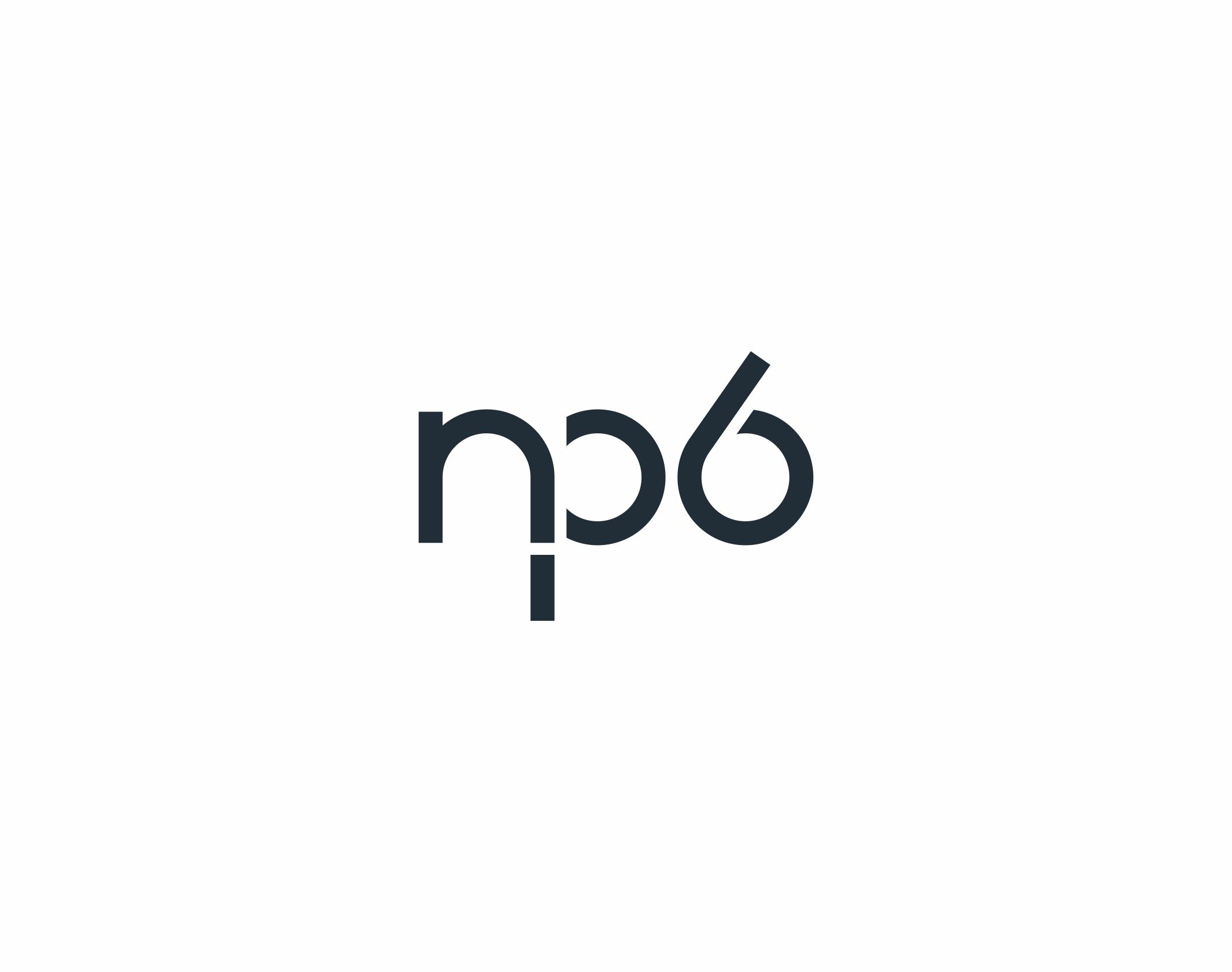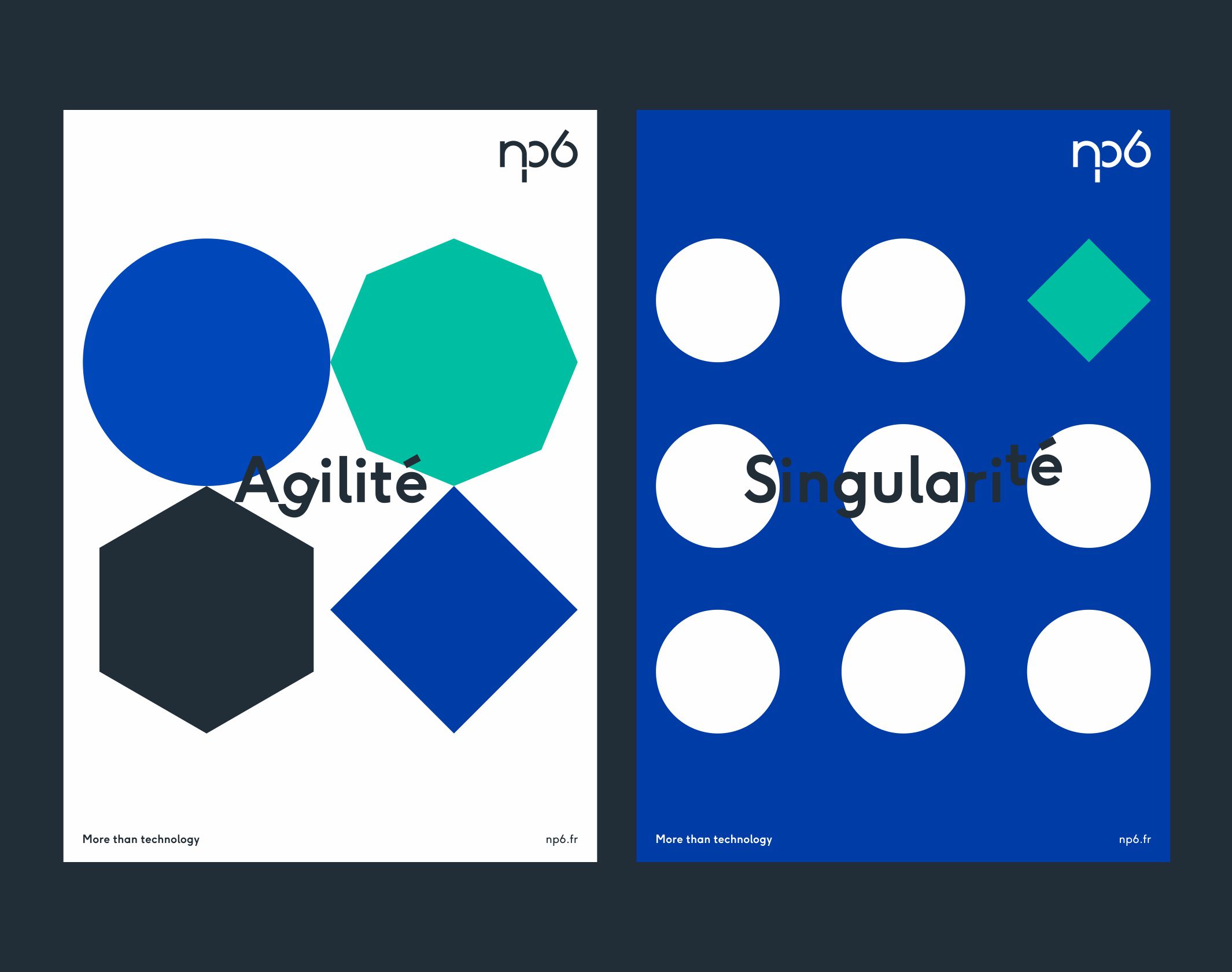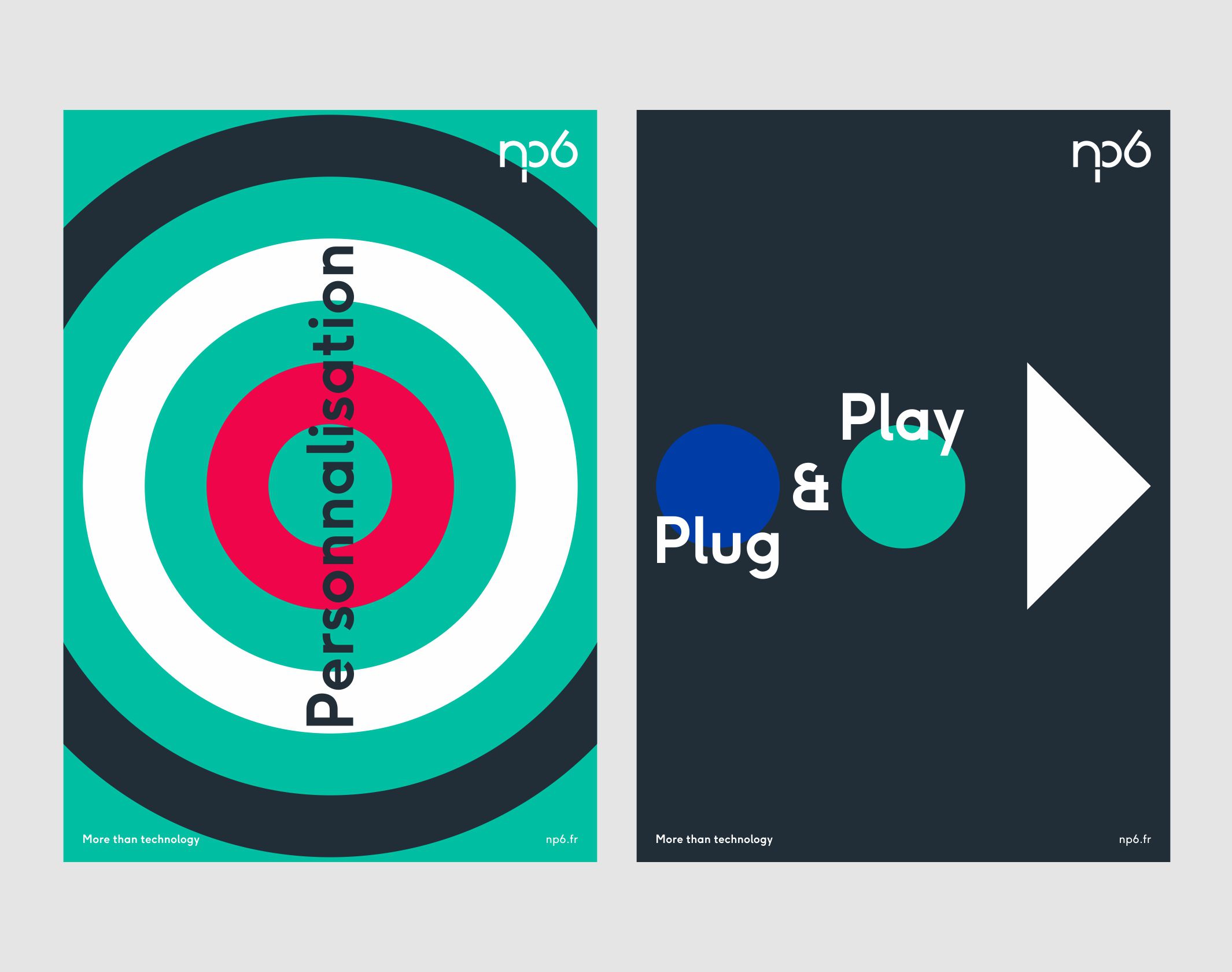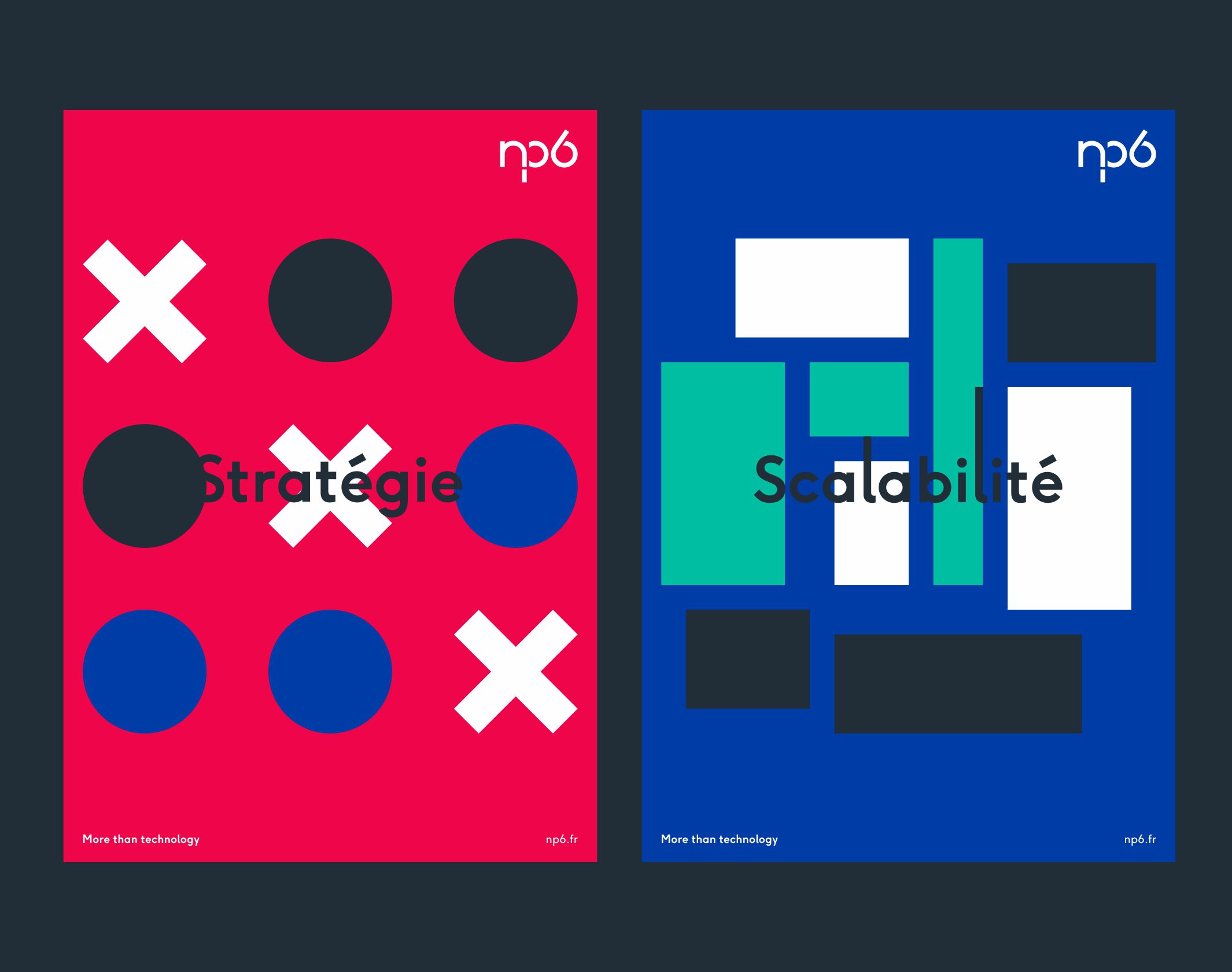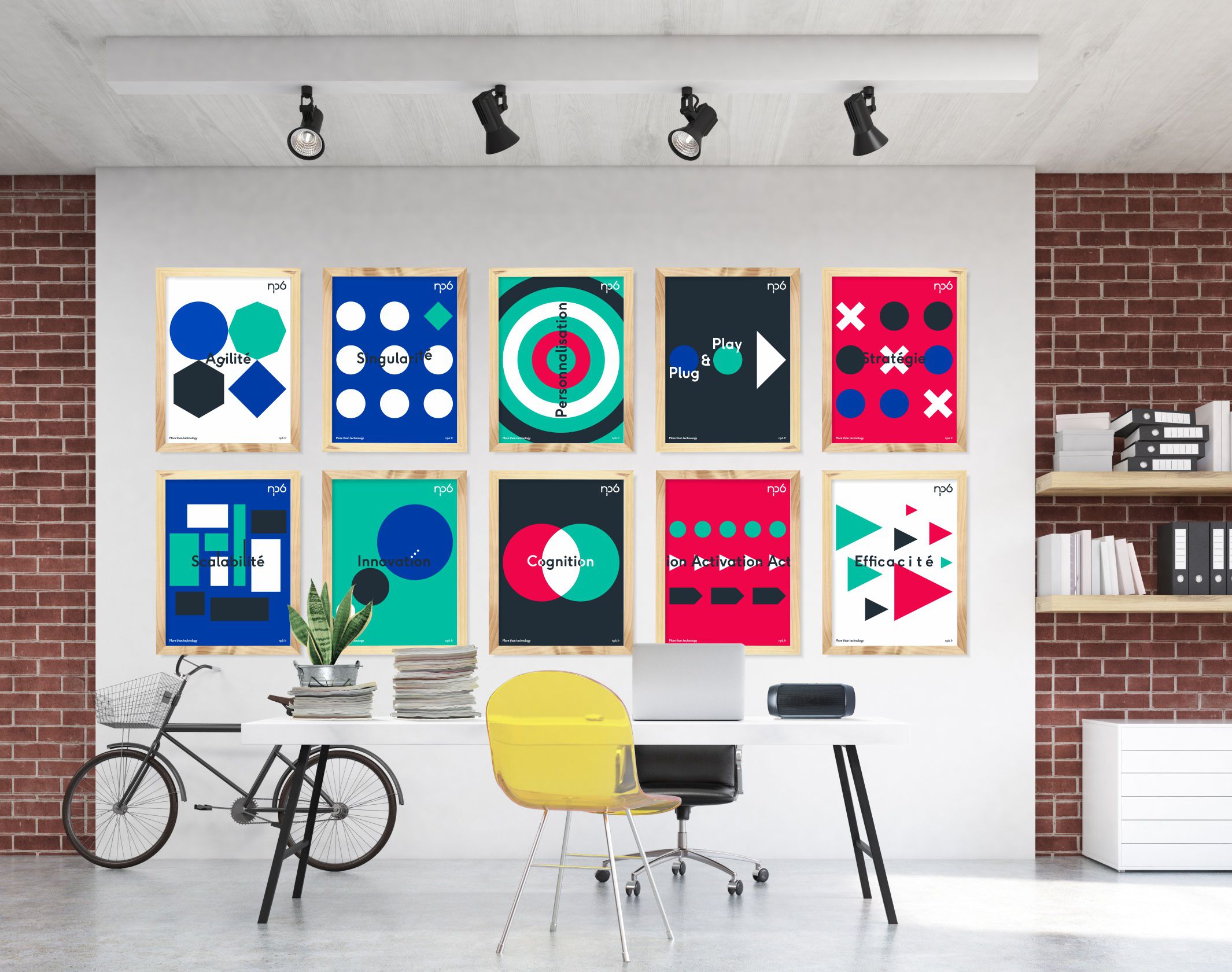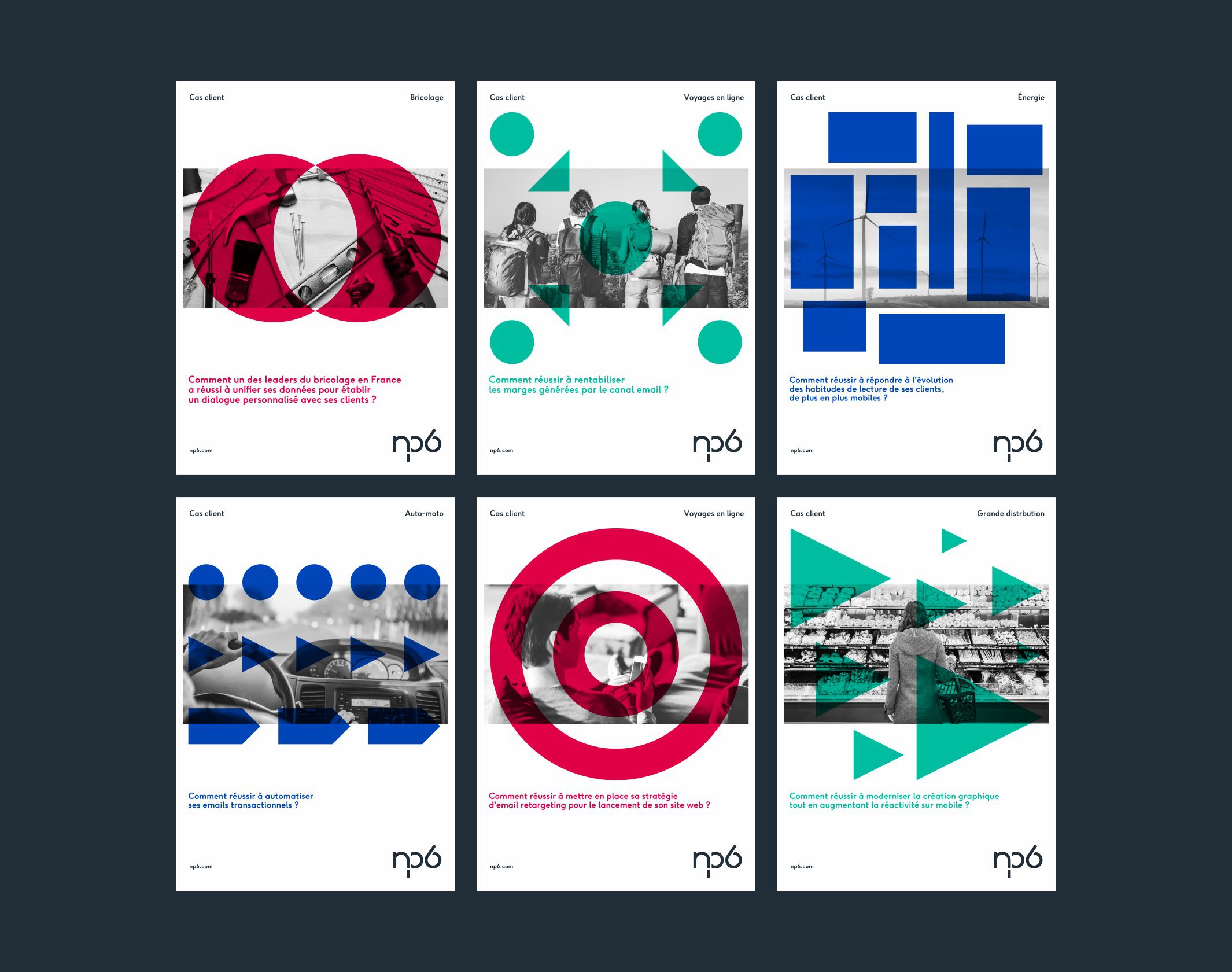
NP6
La data intelligence au service de la relation client
NP6 is a French technology company created in the late 1990s, publisher of the famous emailing solution MailPerformance. Having undergone a significant evolution since its launch, the group based in Bordeaux and Paris is today at the crossroads between marketing, studies and information sciences. Their vision is to help companies establish a personal relationship with each of their customers, in a world where the digitization of data is a hegemonic fact. As an industry-leading publisher of advanced technology platforms, NP6 is helping many large groups and SMEs increase their level of customer knowledge and engage in meaningful and effective activation measures. Brand Brothers was chosen to rethink the group’s overall identity and its print and digital branding, following the merger with the French startup Ezakus, which led to a complete repositioning of the group.
The new identity is ambitious. It projects the company into its future vision and becomes the marker of a true rebirth. Designed around a revisited brand platform and strong and honest values, this visual territory is based on a refined and statutory logo: typed for the occasion, this monogram is made of unexpected interlacing, reassuring straight lines, harmonious curves And subtly unstructured elements. It evokes without effort superfluous notions of dexterity and innovation; it is a calm force !
As the result of a meticulous design work spanning several weeks, it combines singularity and simplicity, and wants to stand the test of time. It establishes itself as a solid and innovative base for the deployment of a visual universe reflecting the convictions of the teams: seriousness, agility, commitment.